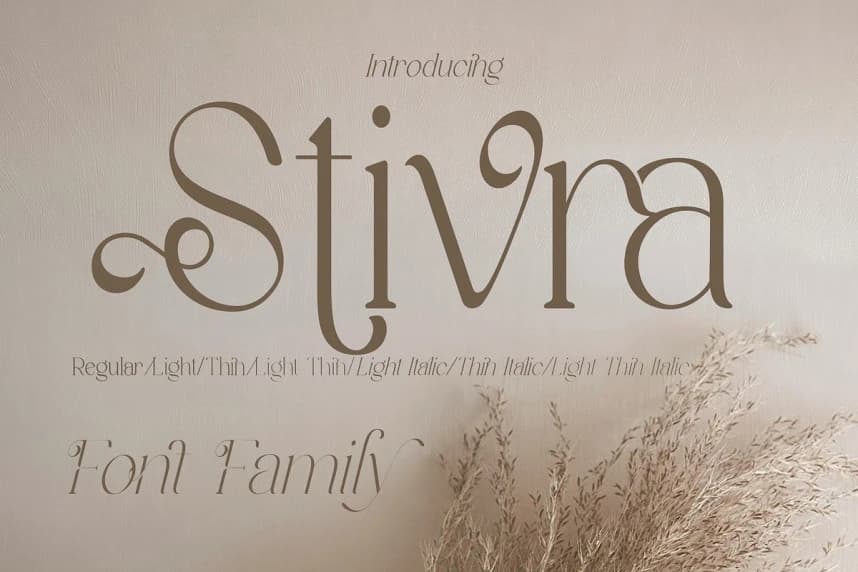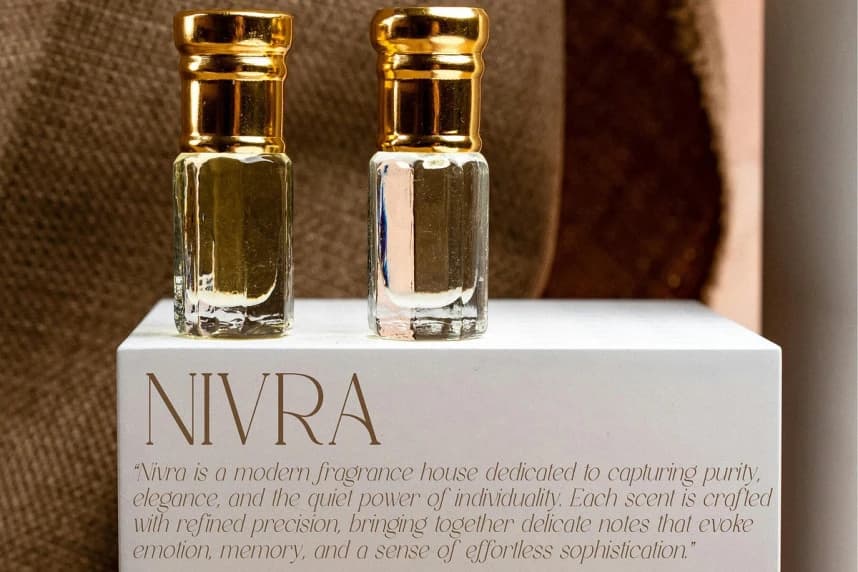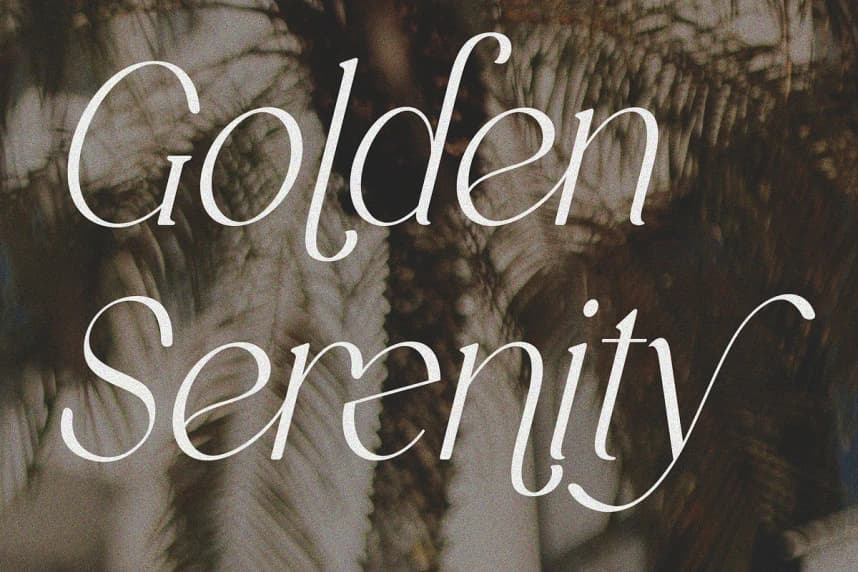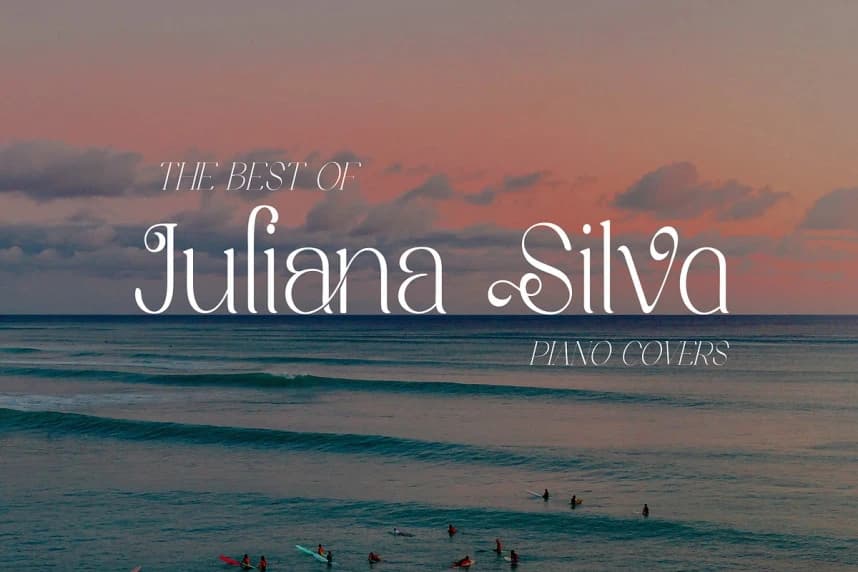
Stivra Font
Stivra Font is a refined serif typeface that blends minimalism with a soft, emotional touch. Its slender letterforms and gentle contrast between strokes create an elegant, warm, and subtly romantic appearance.